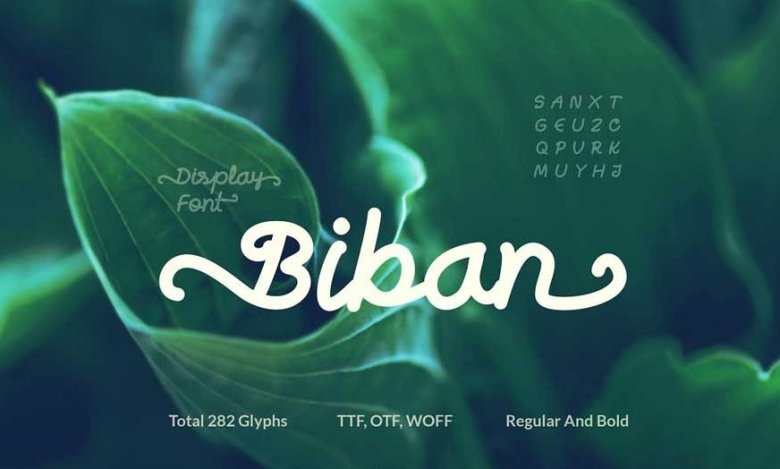
Biban Handwritten Script Font
Introducing a new handwriting font. It creates a beautiful atmosphere to your design and feels joyful.
The font is fully handmade, polished by mouse for some creative perfection along with some secret sauce cooked at our studio.